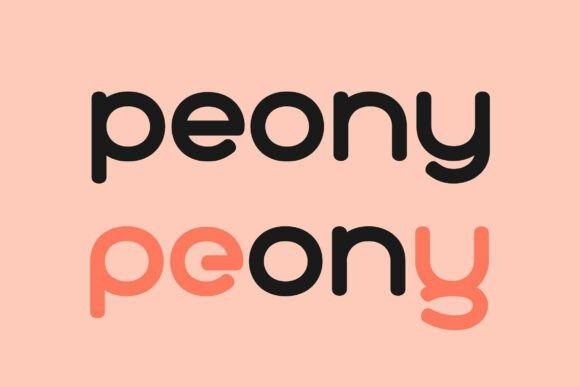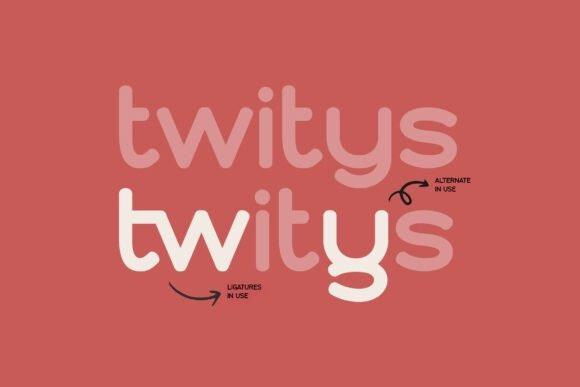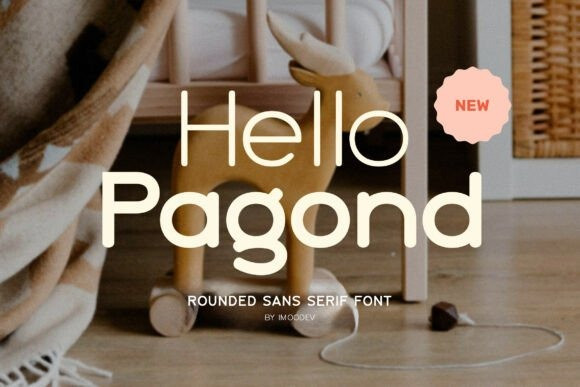
Hello Pagond Font
Hello Pagond Font is a monolinear, rounded sans serif font defined by its perfectly uniform stroke weight and gently curved letterforms. Built on clean geometric shapes with soft, rounded edges, it exudes a friendly, approachable character that feels both modern and heartfelt.
Available in a clean Regular and a slightly weightier Bold, Hello Pagond balances minimalism with a touch of playfulness. This makes it a charming choice for children’s clothing brands, educational materials, stationery, birthday invitations, baby shower designs, social media quotes, and heartfelt greeting cards.